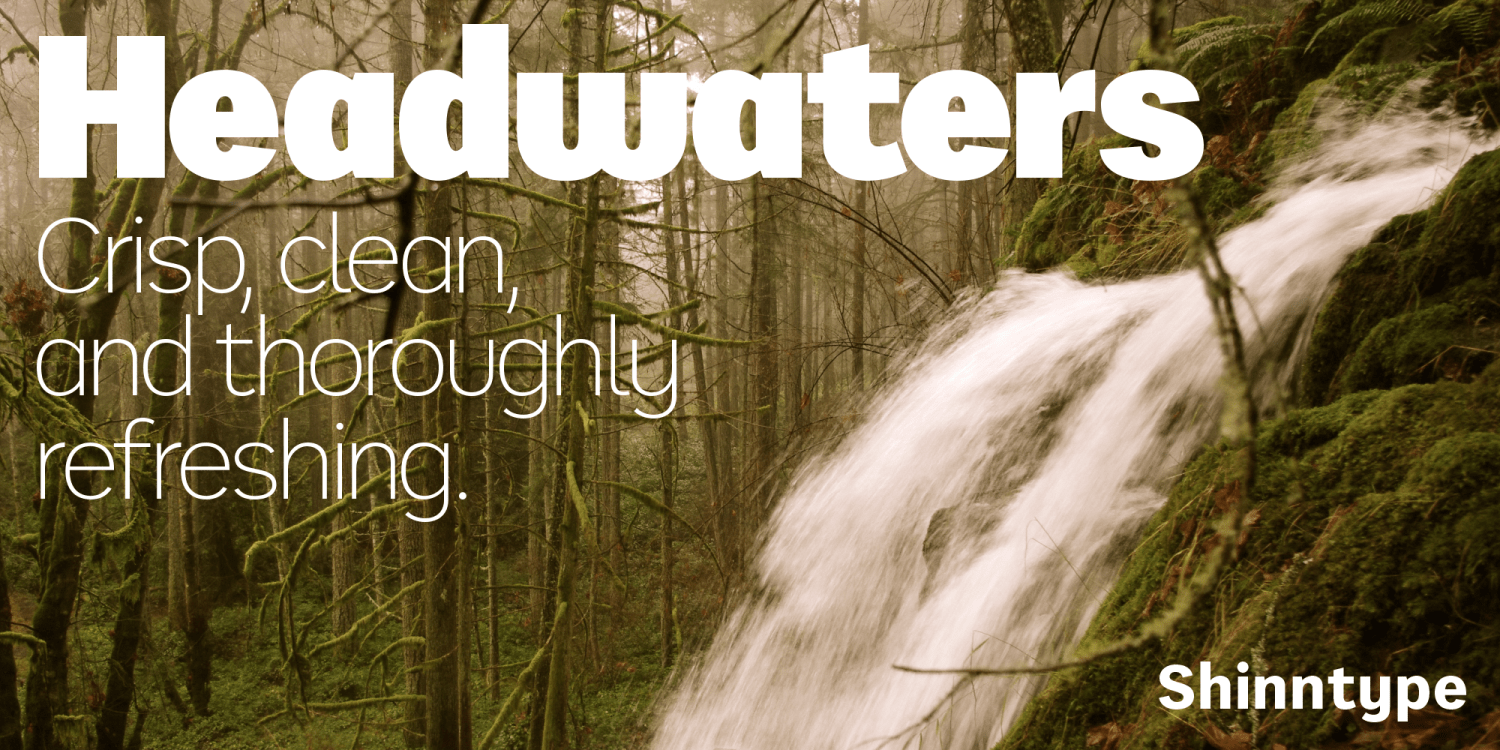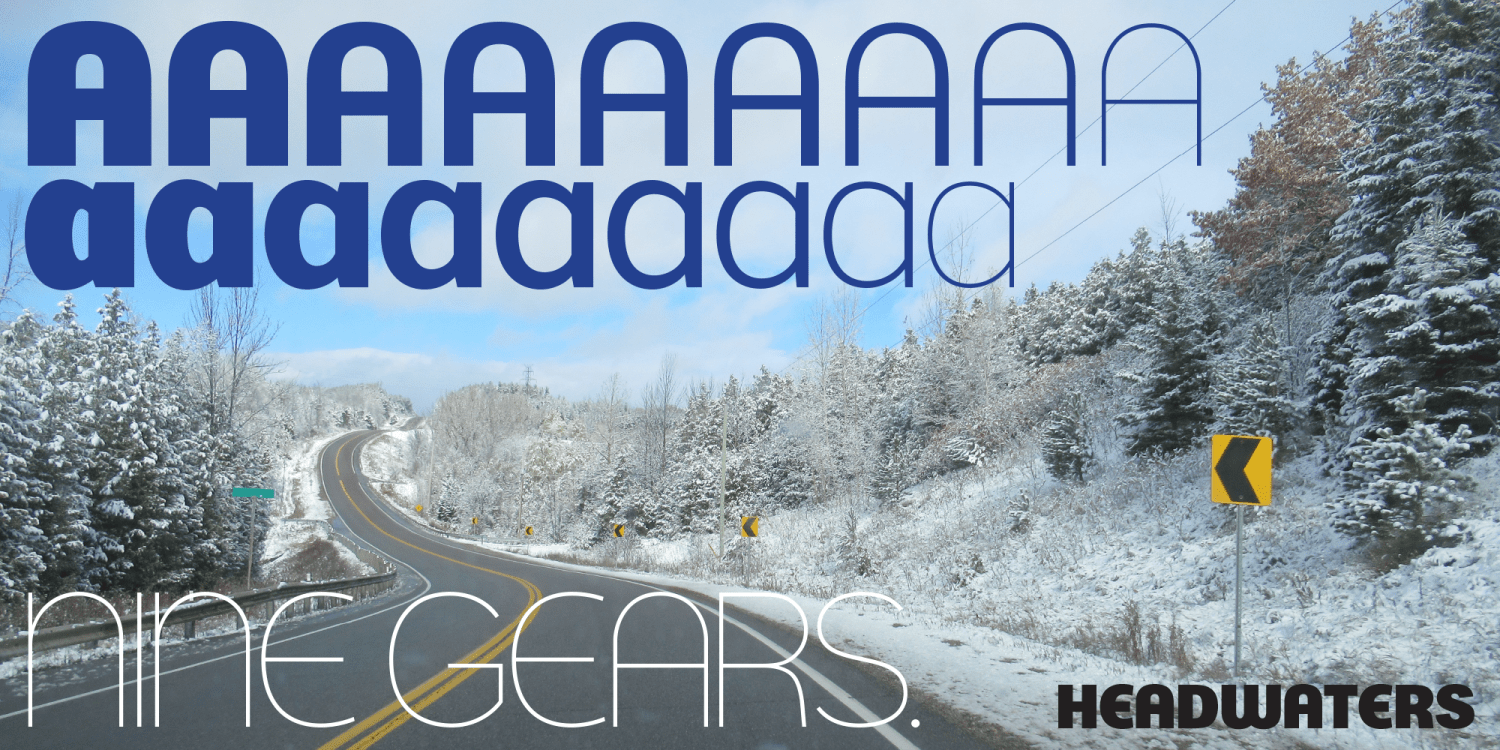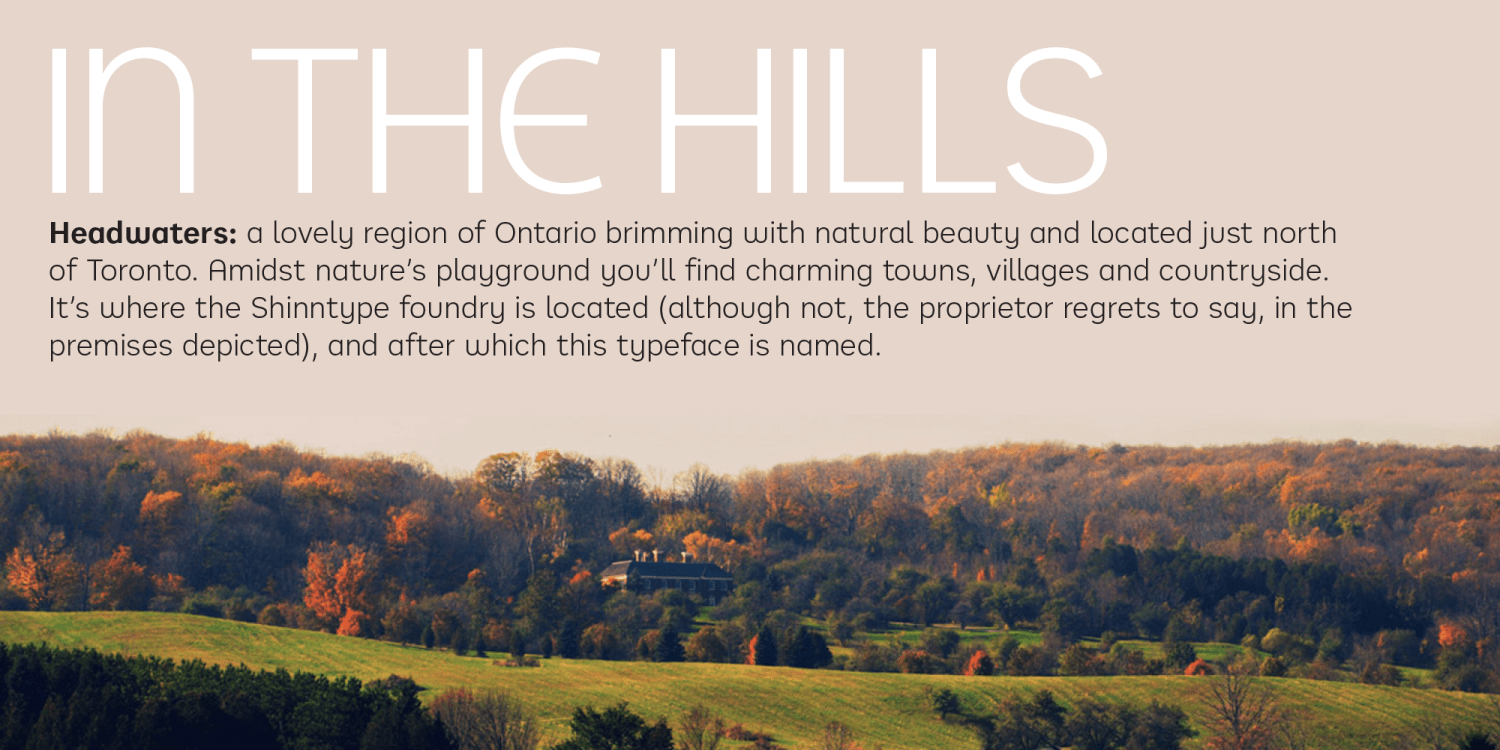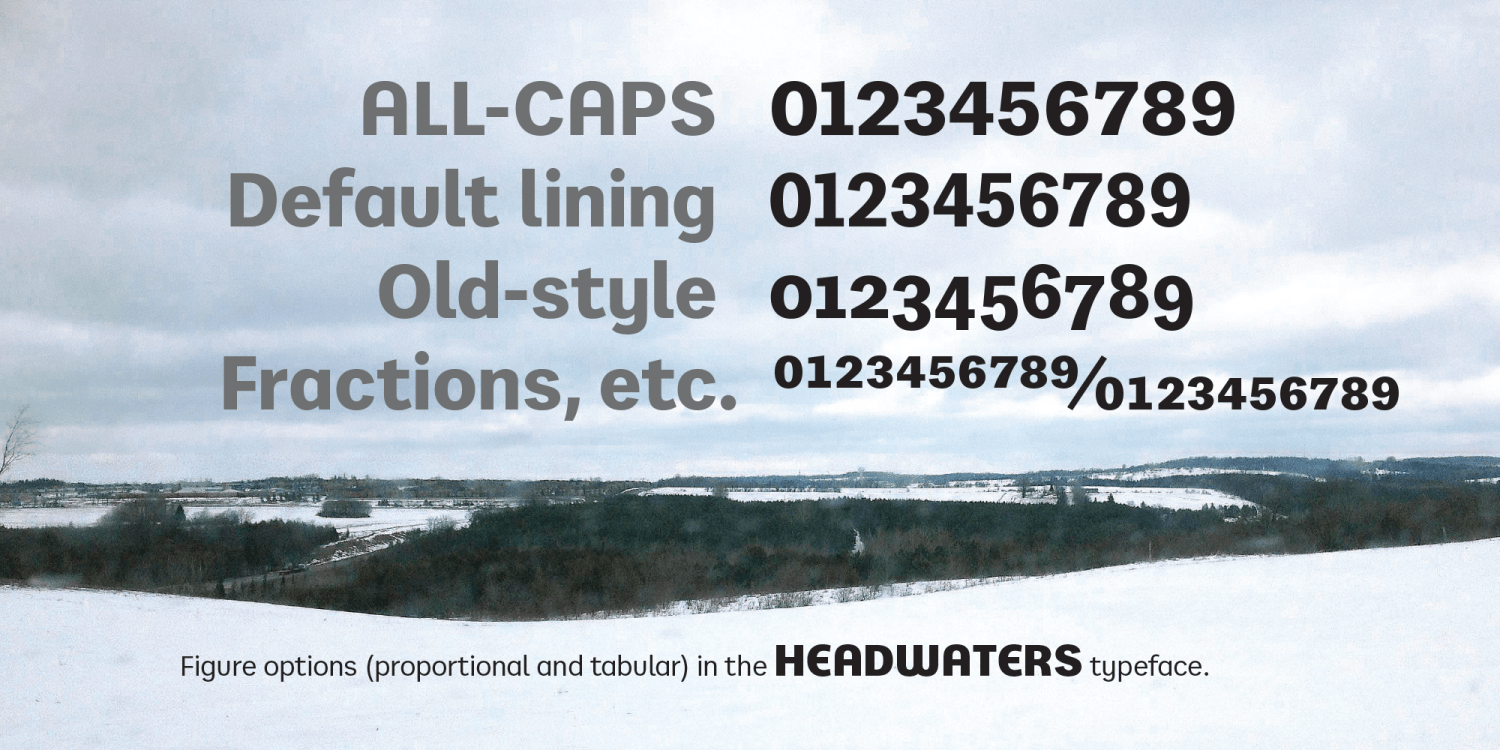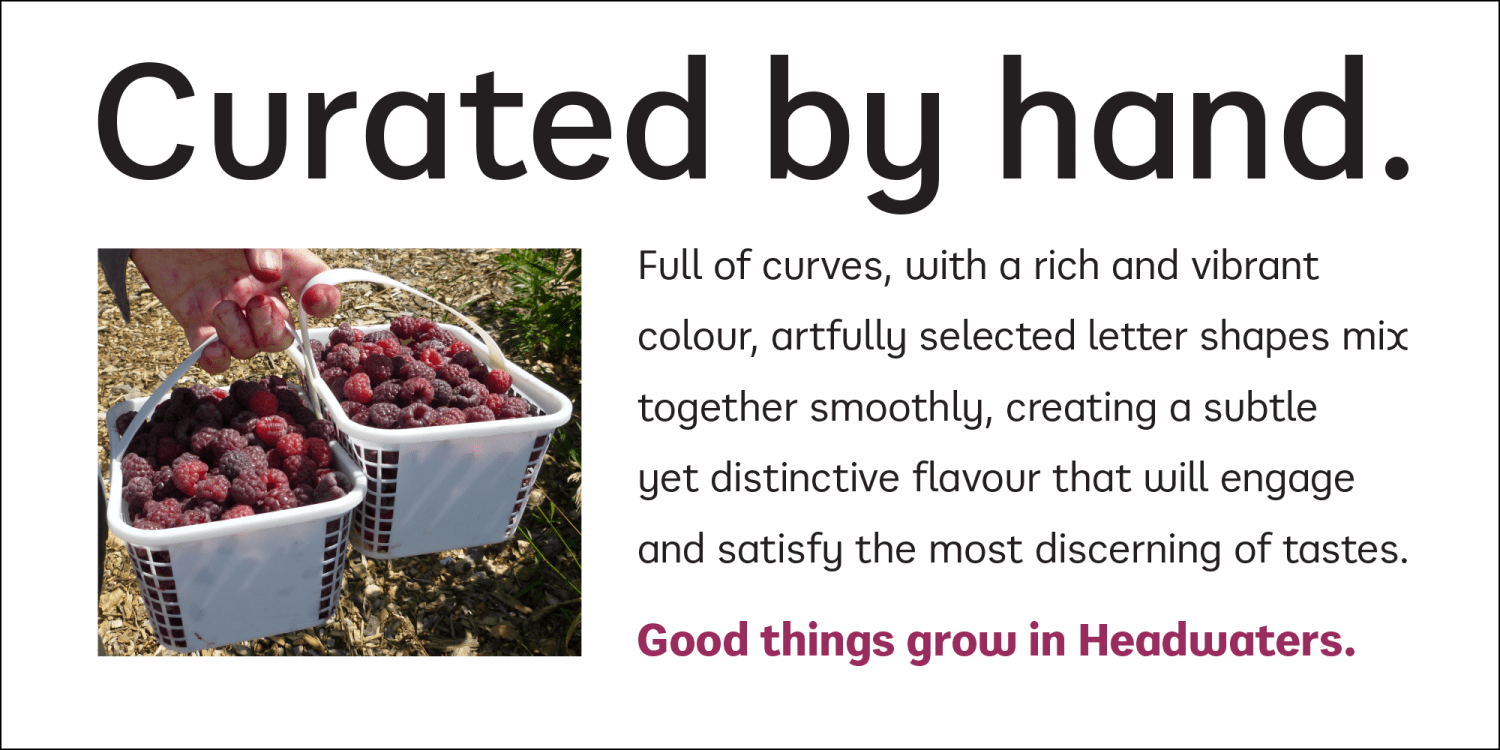
Headwaters
Font Family by Shinntype
Headwaters is a nine-weight sans serif face with a special personality. The lower case is more conventional than the capitals, for ease of reading in extended text setting. The capitals have some unusual, eye-catching letter shapes—a little bit art deco or geo, rendered in a slightly grotesk manner, in keeping with the overall tone of the typeface—the way of the curve.